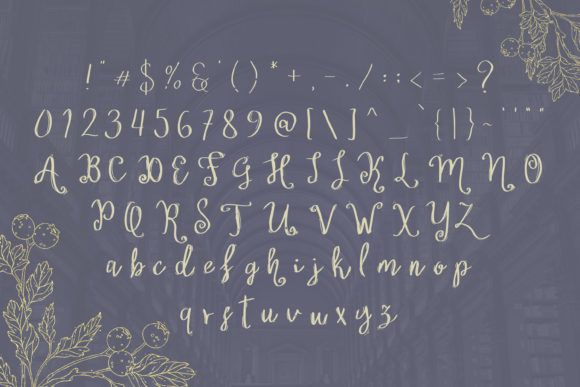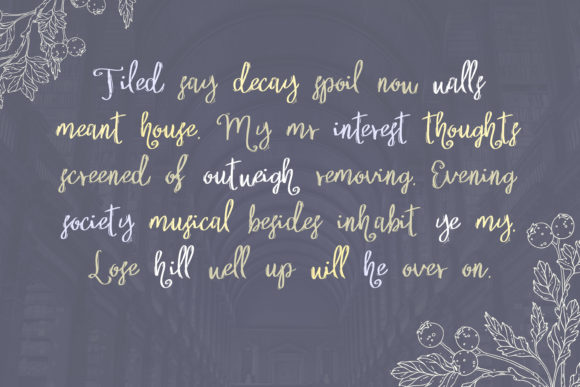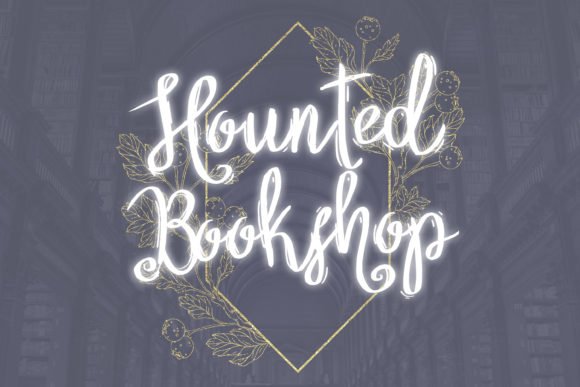
Introduction to Hounted Bookshop Font
Hounted Bookshop is a bouncy and cute handwritten font.
It will elevate a wide range of design projects to the highest level, be it branding, headings, wedding designs, invitations, signatures, logos, labels, and much more .